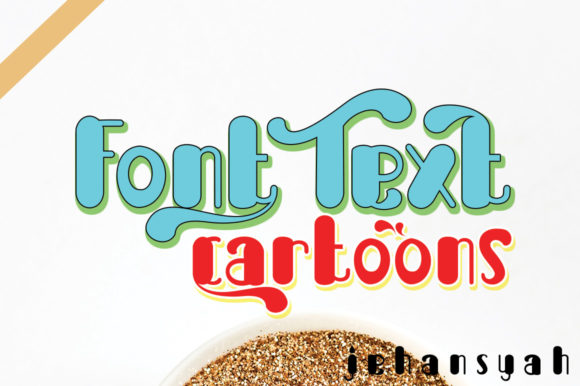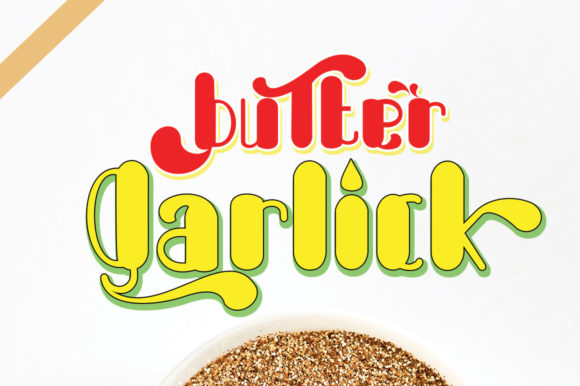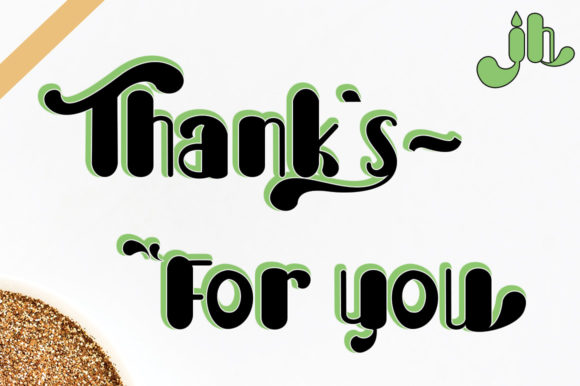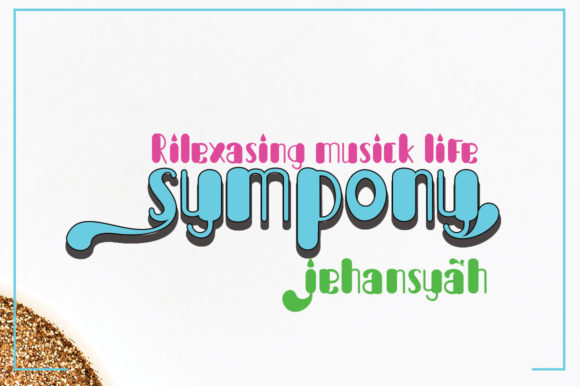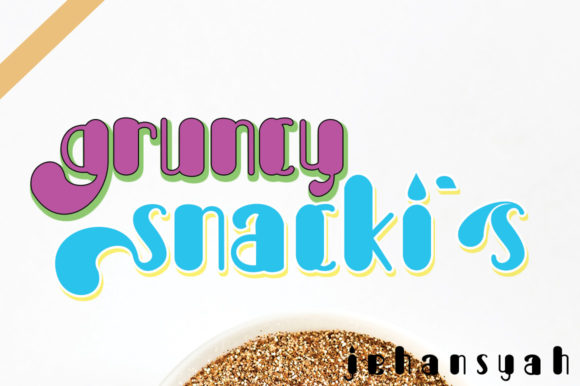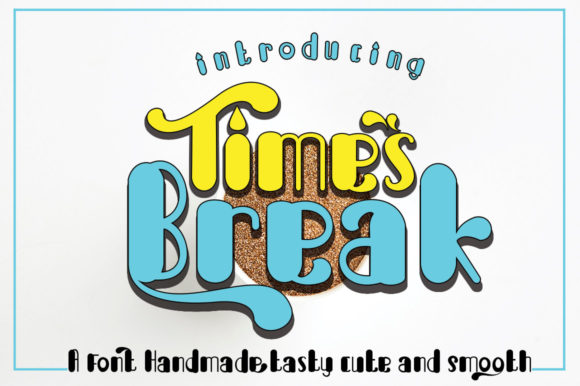
Introducing Break Times Font: The Perfect Blend of Crunchy and Smooth
Are you a designer or crafter looking for a font that can add a playful touch to your creations? Look no further than Break Times Font! This crunchy display font is designed to bring a sweet and smooth style to your designs, making it perfect for a wide range of projects.
The Characteristics of Break Times Font
Break Times Font is a unique and eye-catching font that is sure to grab attention. Its crunchy texture gives it a bold and edgy feel, while its smooth lines and curves add a touch of elegance and sophistication. This font is perfect for designers who want to create playful and fun designs that still have a level of refinement and polish.
What Makes Break Times Font So Versatile?
One of the things that sets Break Times Font apart is its versatility. This font can be used for a wide range of projects, from posters and flyers to logos and branding materials. It’s also perfect for crafters who want to add a personal touch to their handmade creations, such as scrapbooking, card making, and DIY crafts.
Key Features of Break Times Font
- Crunchy texture: The crunchy texture of Break Times Font gives it a unique and eye-catching feel that’s sure to grab attention.
- Smooth lines and curves: The smooth lines and curves of this font add a touch of elegance and sophistication, making it perfect for designs that need a level of refinement.
- Playful style: Break Times Font has a playful style that’s perfect for creating fun and engaging designs.
- Display font: This font is designed specifically as a display font, making it perfect for headlines, titles, and other large-format text.
How to Use Break Times Font in Your Designs
Break Times Font is easy to use and can be incorporated into your designs in a variety of ways. Here are a few ideas to get you started:
- Headlines and titles: Use Break Times Font to create bold and eye-catching headlines and titles that grab attention.
- Logos and branding: This font is perfect for creating unique and memorable logos and branding materials.
- Posters and flyers: Break Times Font is a great choice for posters and flyers, adding a playful touch to your designs.
- DIY crafts: Crafters can use Break Times Font to add a personal touch to their handmade creations, such as scrapbooking, card making, and DIY crafts.
Tips and Tricks for Getting the Most Out of Break Times Font
Here are a few tips and tricks to help you get the most out of Break Times Font:
- Experiment with different colors: Break Times Font looks great in a variety of colors, so don’t be afraid to experiment and find the perfect color scheme for your design.
- Play with texture: The crunchy texture of Break Times Font is one of its standout features, so try playing with different textures and effects to add depth and interest to your design.
- Mix and match: Break Times Font can be paired with a variety of other fonts and styles, so don’t be afraid to mix and match to create a unique look.
Break Times Font is a unique and versatile font that’s perfect for designers and crafters who want to add a playful touch to their creations. With its crunchy texture and smooth lines and curves, this font is sure to grab attention and add a level of sophistication to your designs. Whether you’re creating posters, logos, or DIY crafts, Break Times Font is a great choice. So why not give it a try and see what amazing designs you can create?